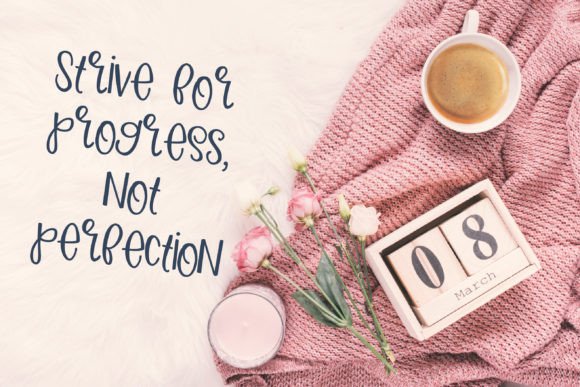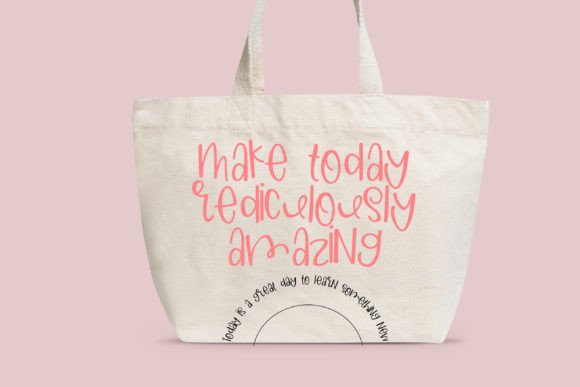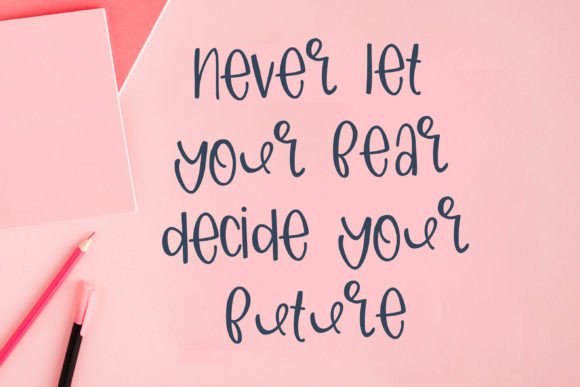
Introduction to Raspberry Oats Font
Do you remember the moment when you first decided to create something truly unique for your loved one’s birthday? Maybe it was a handmade card with a special message or a customized invitation that set the tone for an unforgettable event. For designers, this moment is often sparked by the discovery of a new, high-quality design resource that elevates their creative project to the next level. One such resource is the Raspberry Oats Font, a hand-crafted font that combines the charm of print and script-like lettering.
This versatile font is perfect for designers looking to add a personal touch to their projects. With its transparent background and free download option, it’s easy to integrate into any design. Whether you’re working on a wedding invitation, a greeting card, or a branding project, the Raspberry Oats Font is sure to bring a touch of elegance and sophistication.
Key Features of Raspberry Oats Font
- High-quality design resource ideal for creative projects, including invitations, logos, and more.
- Unique, hand-drawn design with a transparent background, perfect for layering and customization.
- Includes a wide range of characters, including uppercase and lowercase letters, numbers, and punctuation marks.
- Designed with a bold, playful style, making it perfect for use in designs that require a fun and creative touch.
- Great for use in various design projects, including branding, advertising, and editorial content.
Honest Review: Raspberry Oats Font
I recently came across the Raspberry Oats Font, and I must say, it’s a unique addition to my design resource library. The font has a quirky, playful feel to it that’s perfect for creative projects where you want to add a bit of whimsy.
What works well about Raspberry Oats Font is its high quality and versatility. The font is available for free download, which is a bonus, and it’s easy to work with. The transparent background makes it simple to use it on any design element, from text to icons.
- ✨ Unique, playful design that adds character to creative projects
- ✨ High-quality font with a transparent background for easy use
- ✨ Available for free download, which is a great resource for designers
However, there are a few limitations to consider. The font may not be suitable for formal or professional projects, as it’s quite bold and playful. Additionally, some users may find the font’s quirks a bit overwhelming.
Overall, I’m impressed with Raspberry Oats Font, and I think it’s a great addition to any designer’s library. It’s perfect for creative projects where you want to add a bit of personality and flair.
Raspberry Oats Font is a high-quality, creative design resource perfect for your next project. With its unique and stylish look, this font is ideal for adding a touch of elegance to your designs.
Raspberry Oats Font is perfect for:
Wedding invitations and stationery
Branding and logo design
Editorial and magazine design